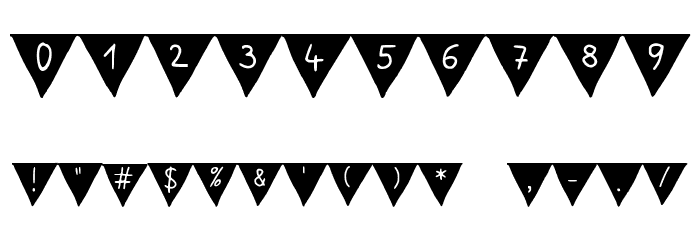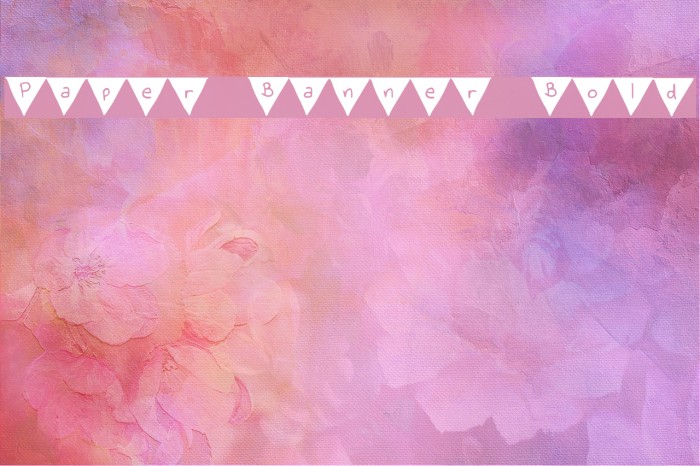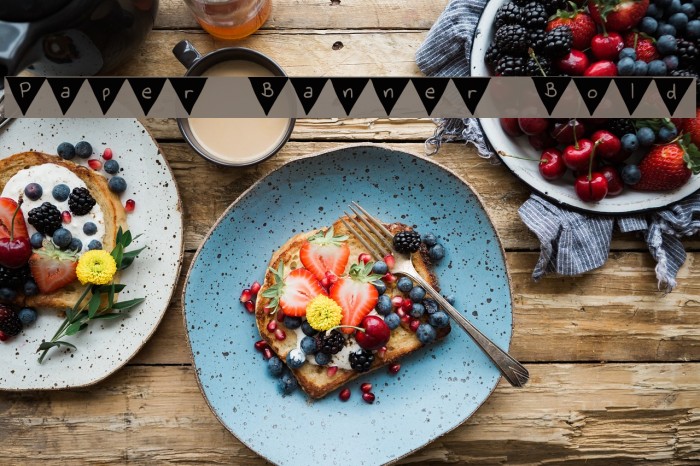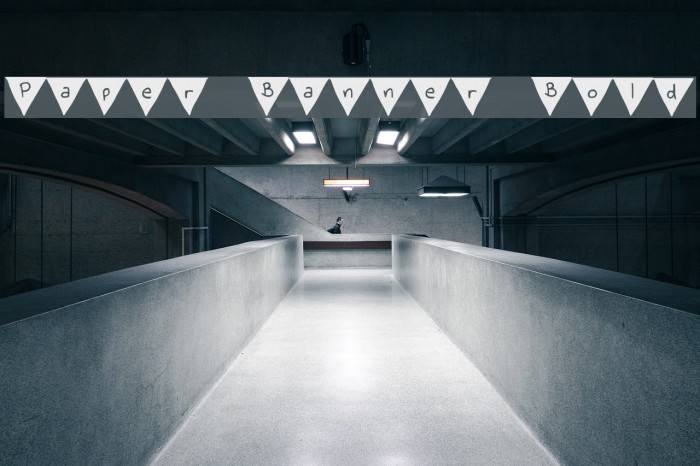
Paper Banner Bold Font
This font features a playful and decorative style, with each character enclosed within a triangular banner shape. The letters are bold and slightly whimsical, giving a hand-drawn appearance that adds a touch of charm and creativity. The uppercase and lowercase letters maintain a consistent style, while the numbers and special characters follow the same design theme. The overall look is cohesive and visually appealing, making it suitable for festive and informal projects.
A playful, decorative font with characters inside triangular banners.
- Proposed Projects: Ideal for party invitations, banners, children's event posters, and playful branding materials.